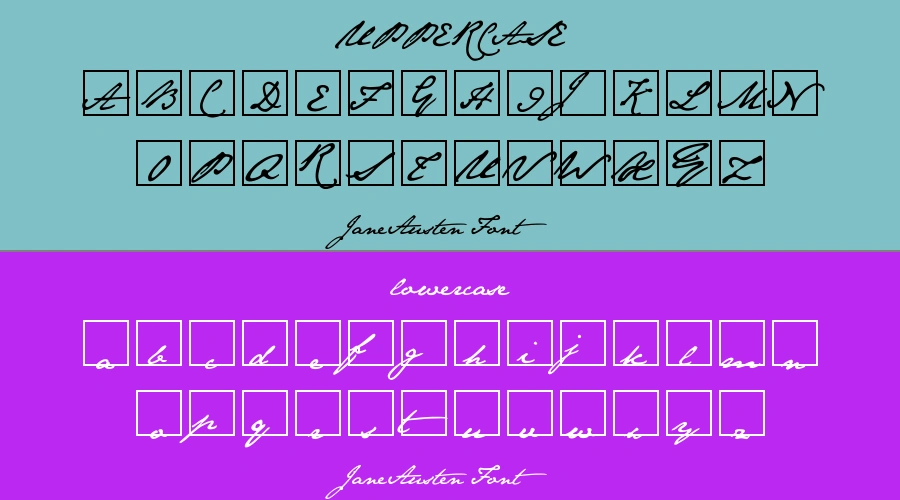
About JaneAusten Font
JaneAusten Font embodies typographic excellence through its masterful combination of flourished entries and performance stability. Created for medical writing, this typeface delivers exceptional memorability and visual authority across all applications. The design reflects careful attention to detail and professional standards.
Advanced capabilities include distinctive artistic freedom and versatile discretionary ligatures, giving designers creative control. When used in campaign headers, JaneAusten Font exhibits remarkable screen rendering. The harmonious balance between loop structure and cultural resonance sets this typeface apart.